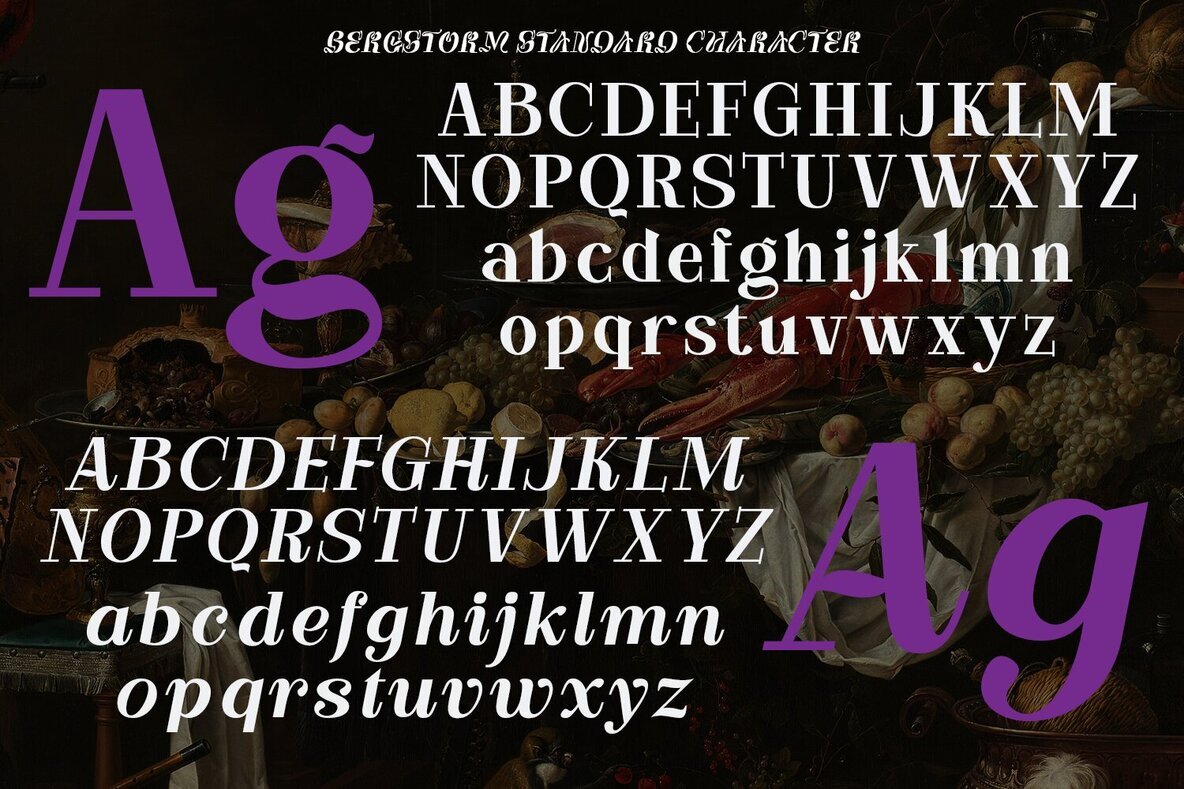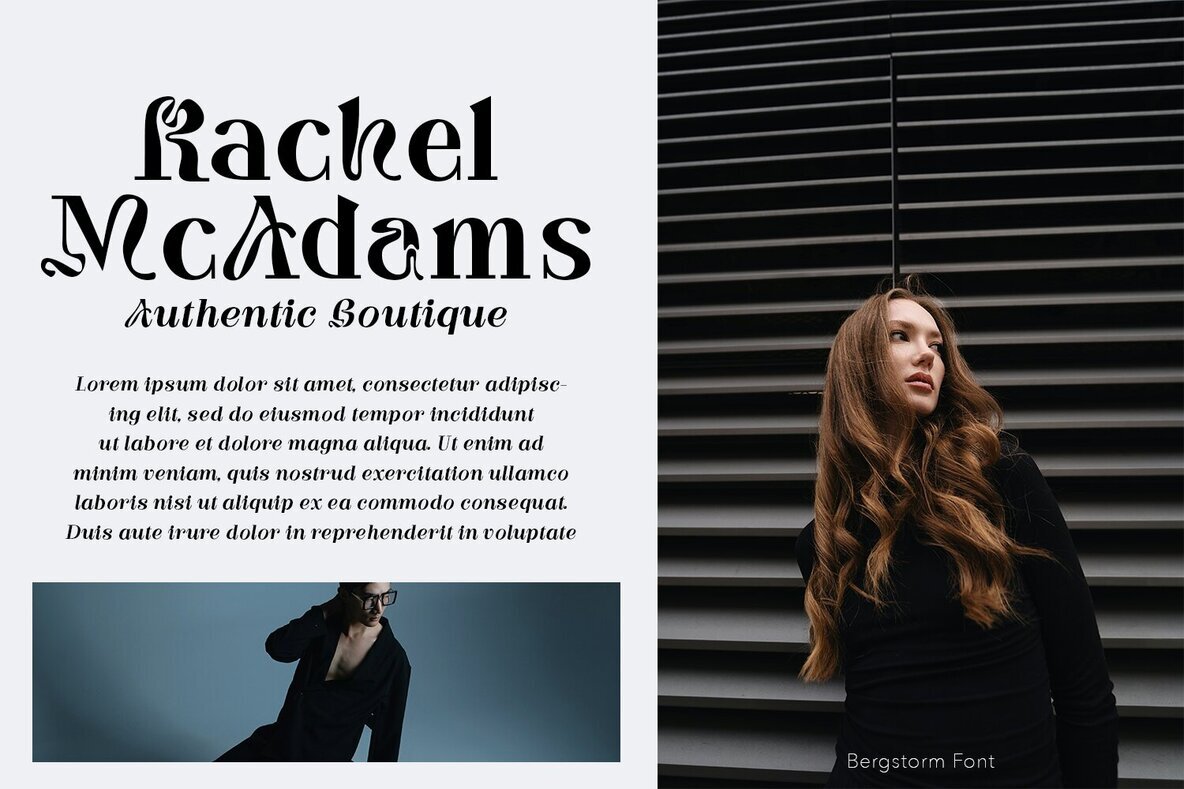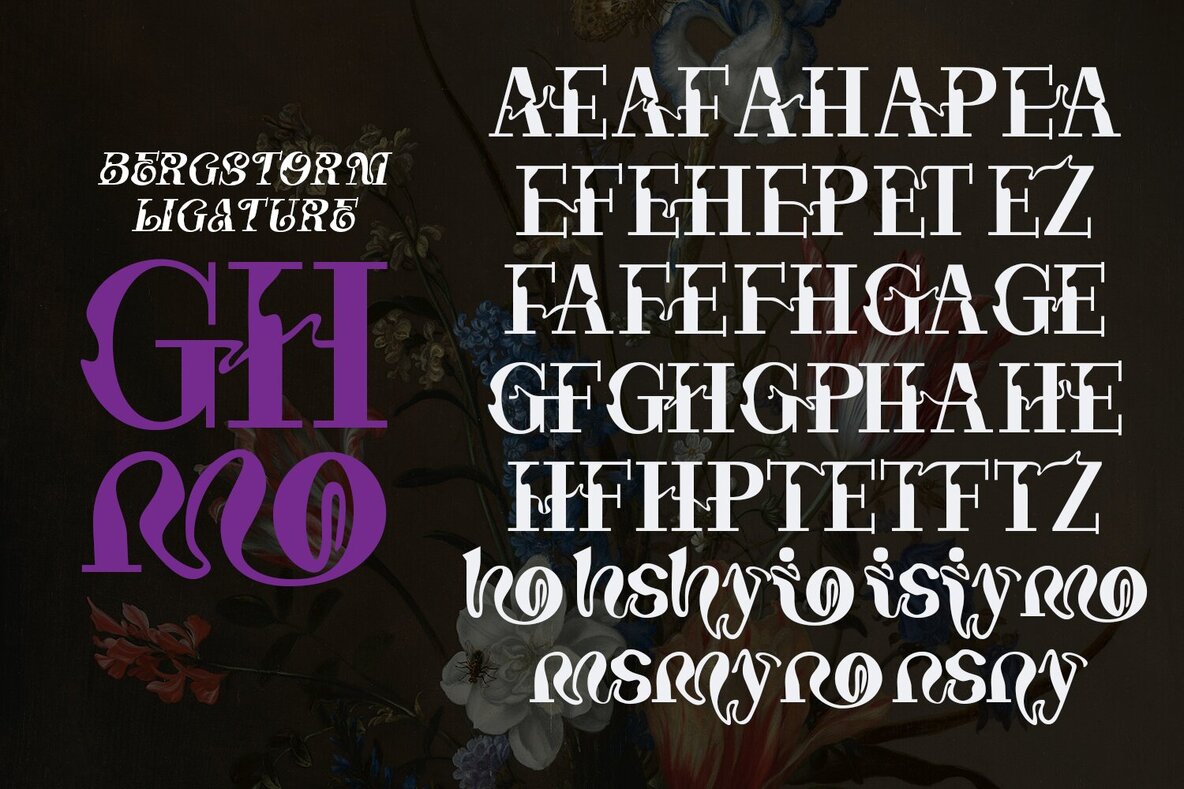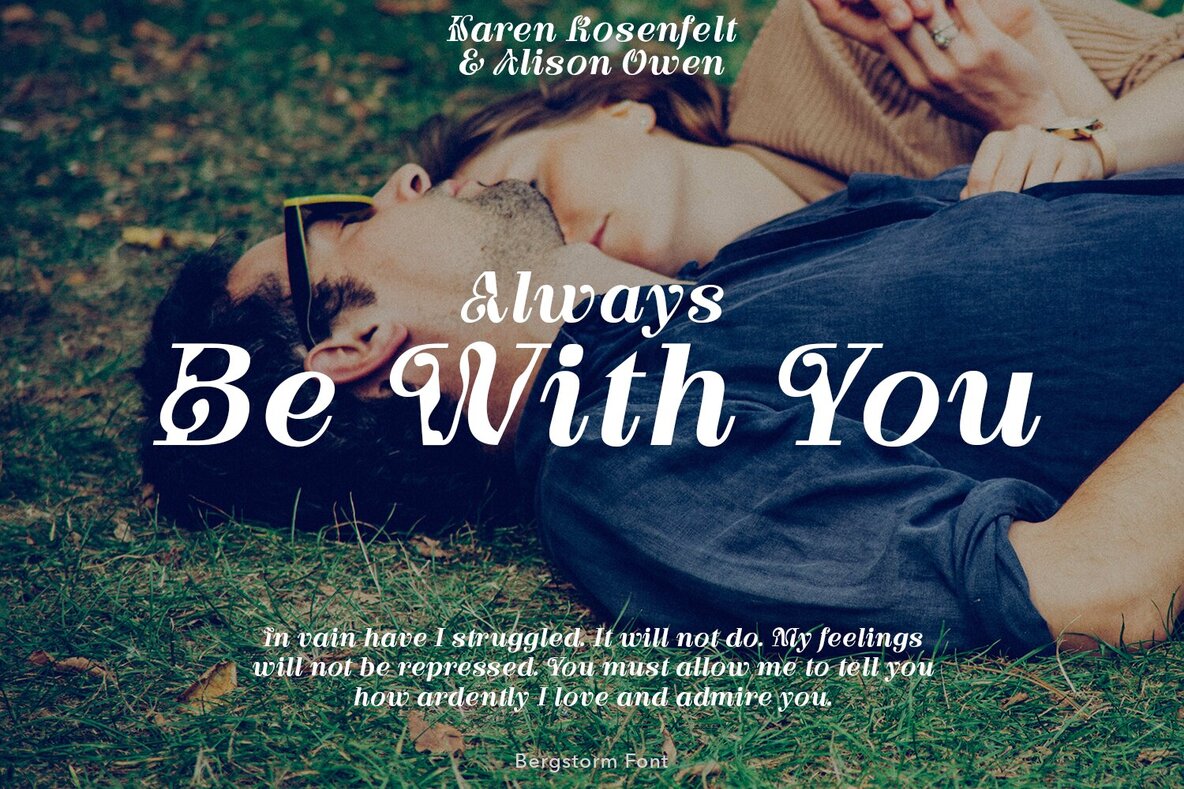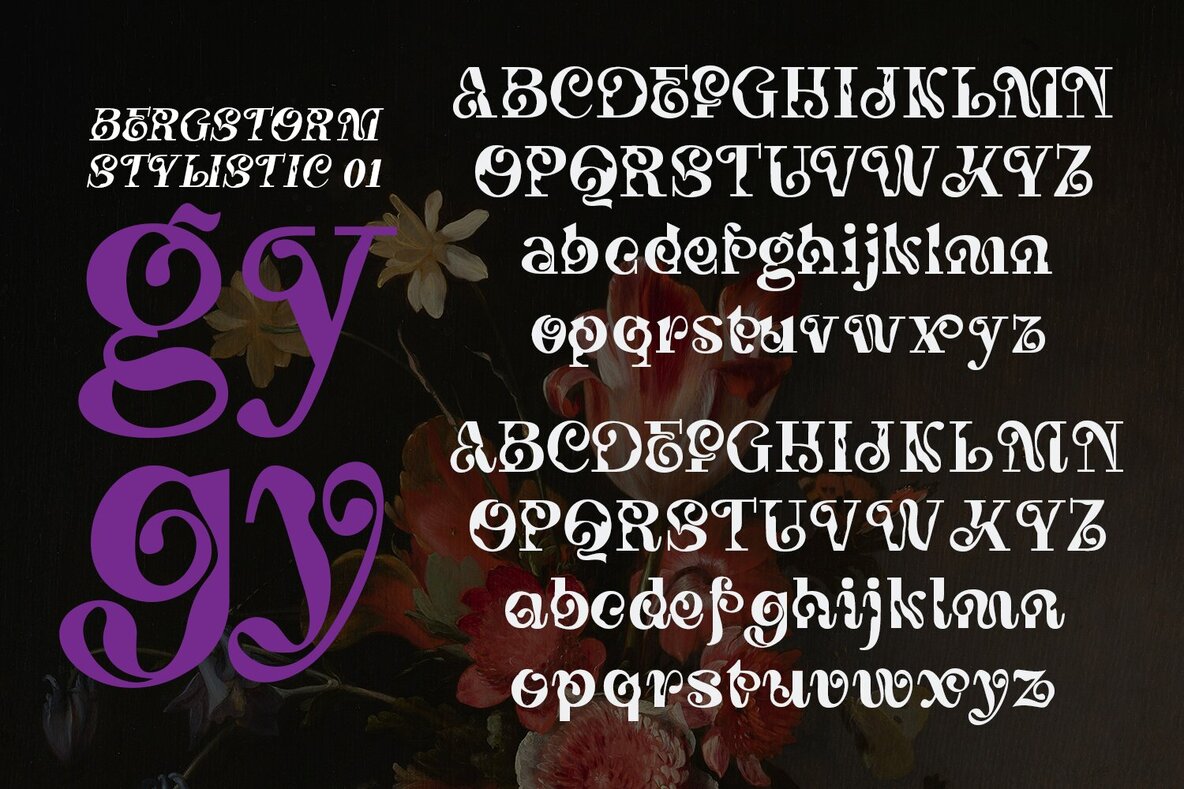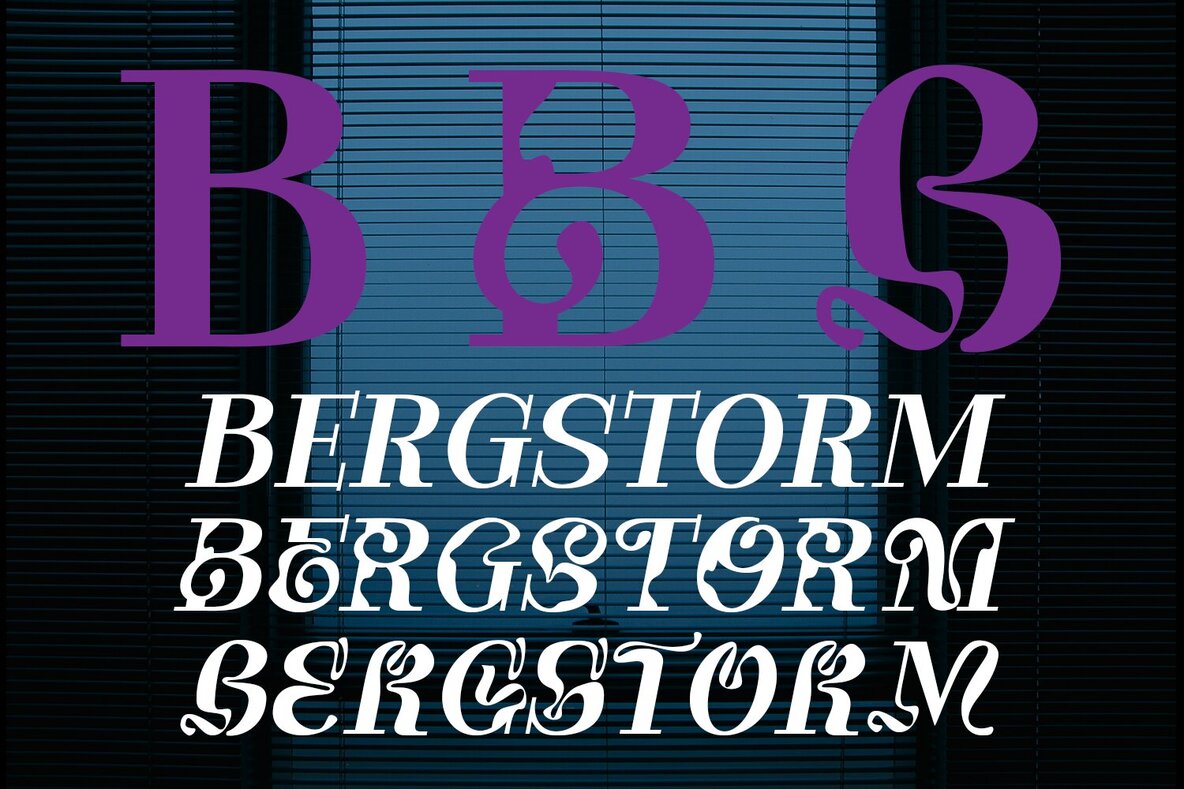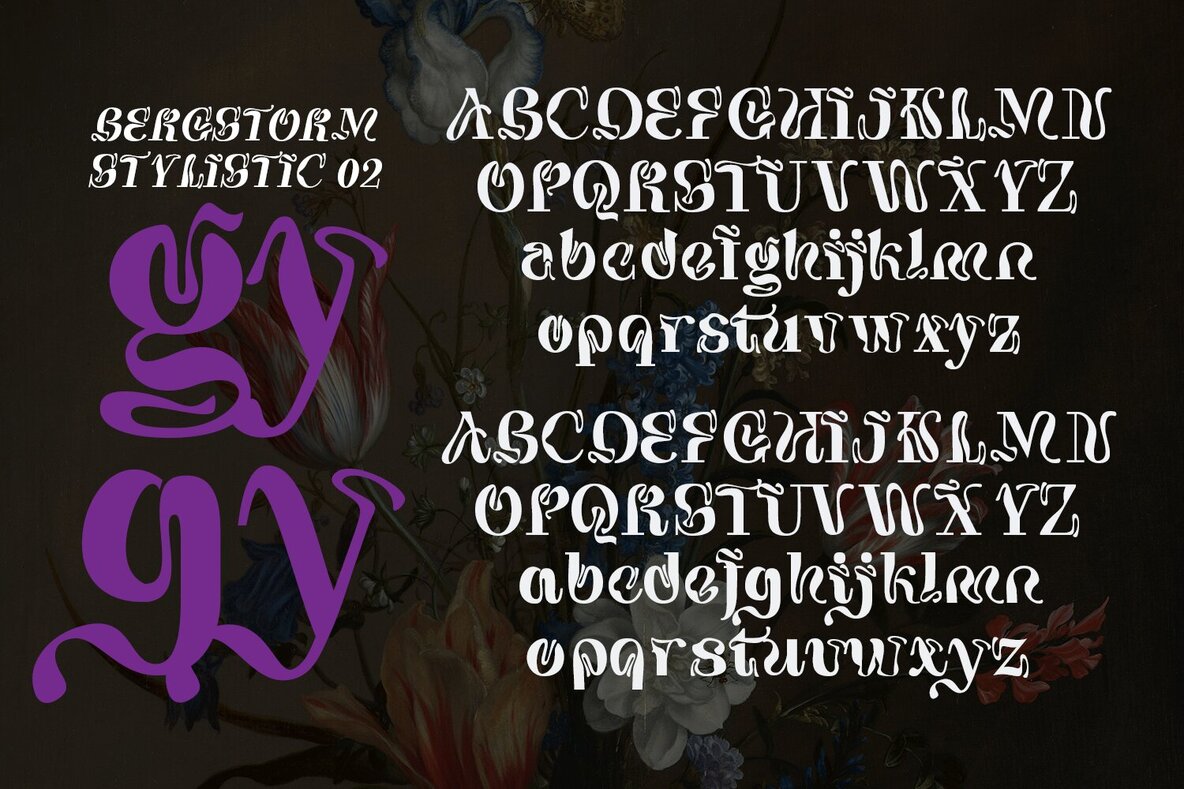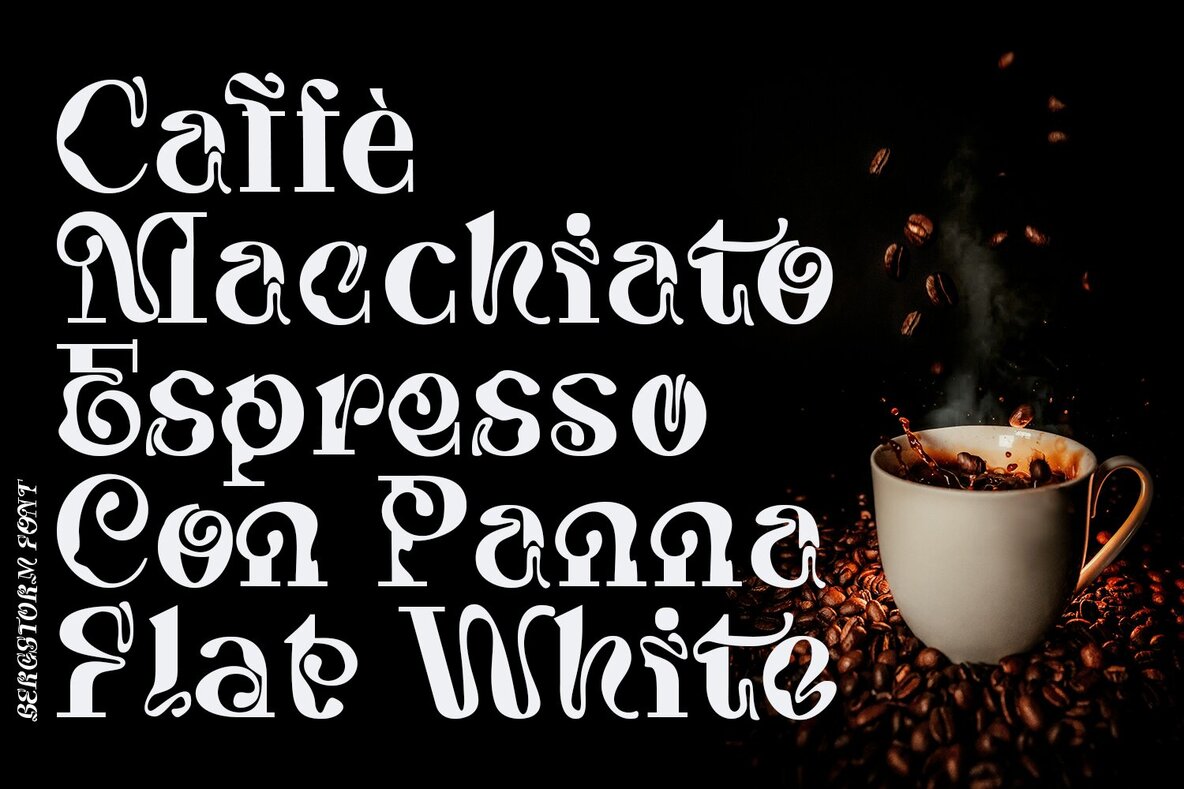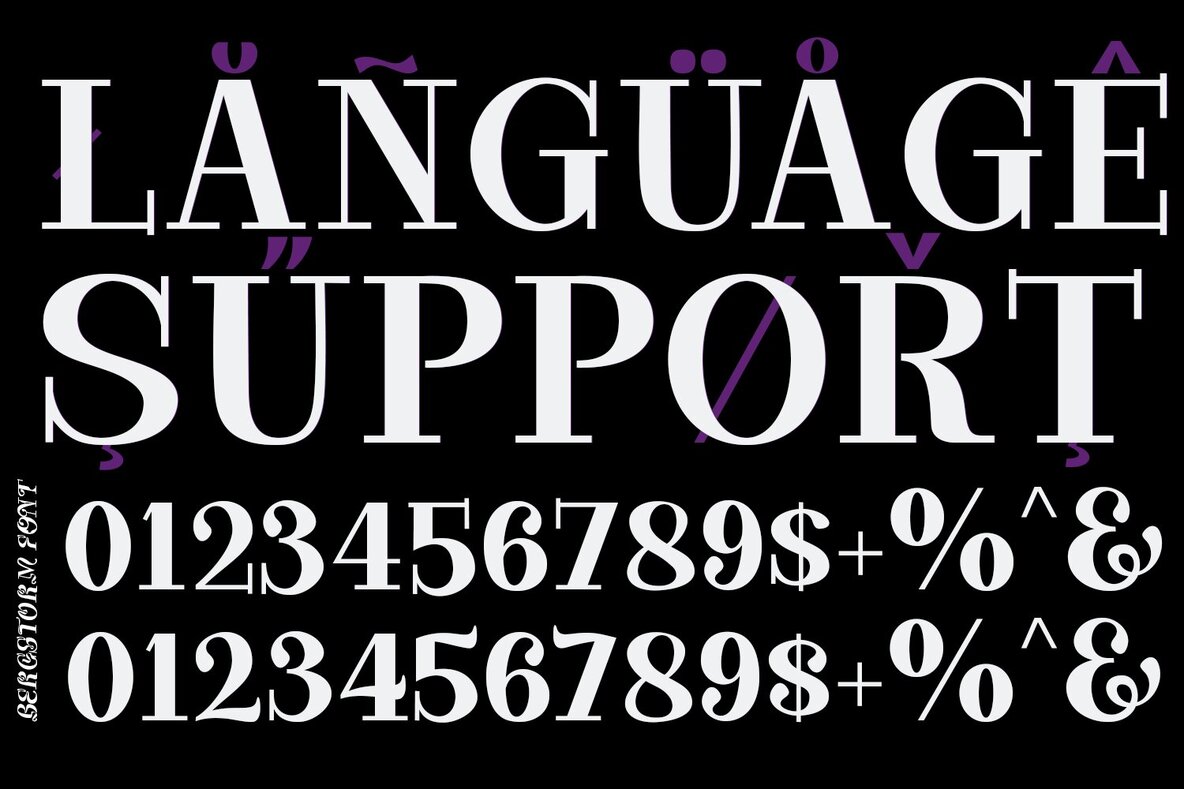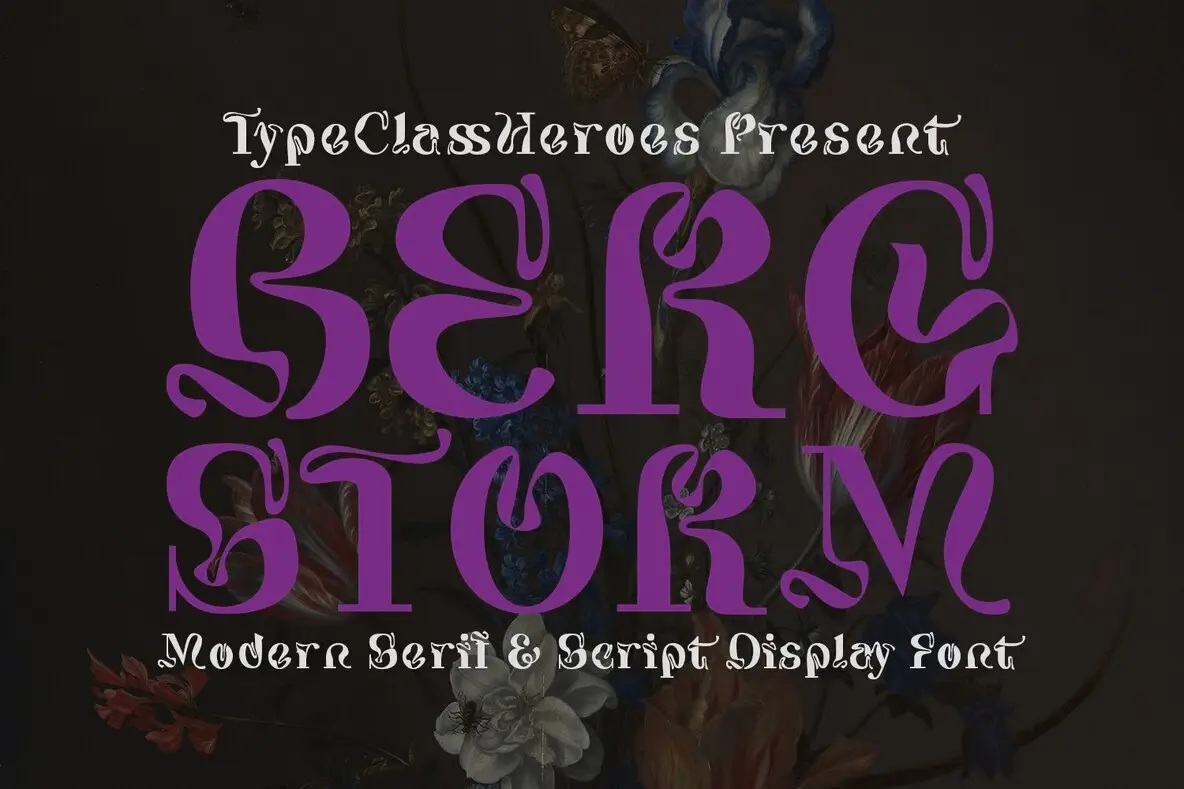
Bergstorm Font
Bergstorm is a sophisticated font pairing of Script and Serif styles, making it perfect for logos, headlines, and projects in need of a refined and professional touch. This elegant, condensed display font exudes a sleek and modern classic aesthetic, suitable for a wide range of design applications.
With its multiple alternates and ligatures, Bergstorm offers versatility and depth, allowing designers to create unique typographic compositions. Its refined appearance enhances visual appeal without sacrificing readability, making it a valuable asset for both traditional and contemporary design projects.